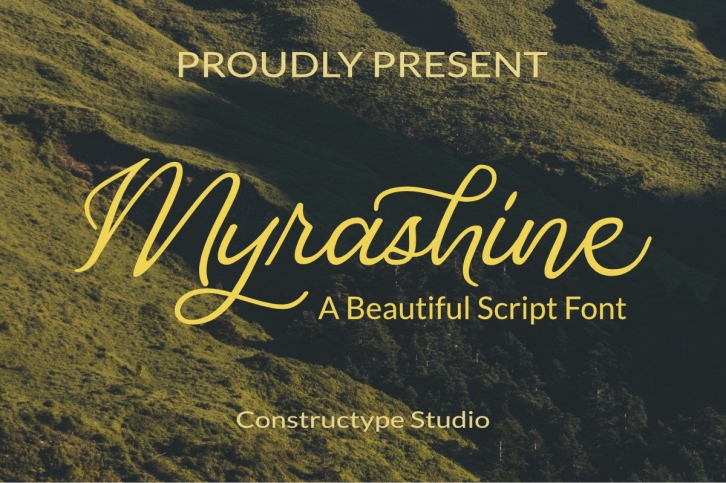
Myrashine is a splendid script font inspired by beautiful curves. This typeface is suitable for paper, fabrics, business cards, clothing, gift cards, invitations, signage, and more. This font is PUA encoded, which means you can access all of the amazing glyphs and ligatures with ease!